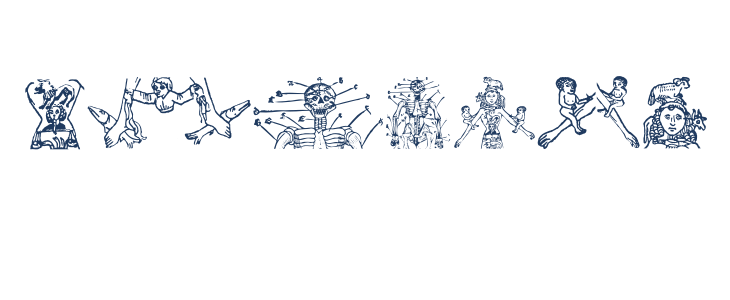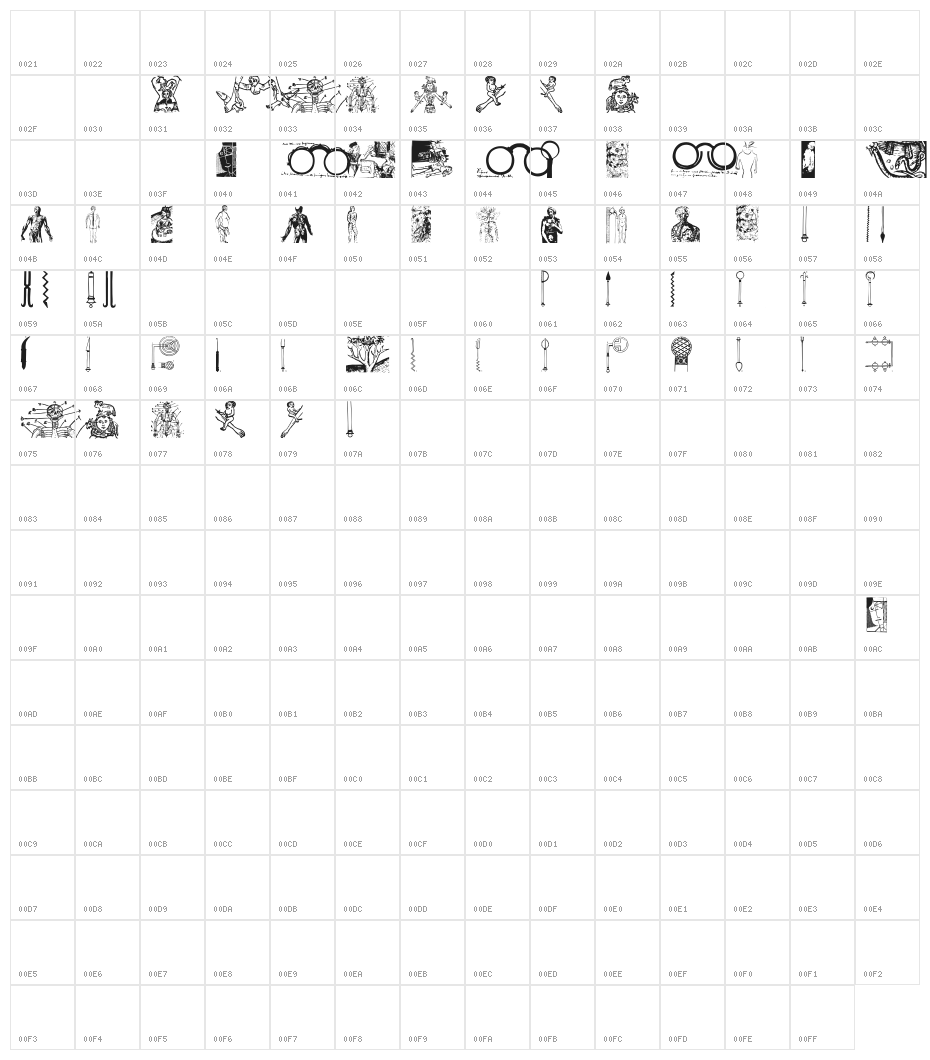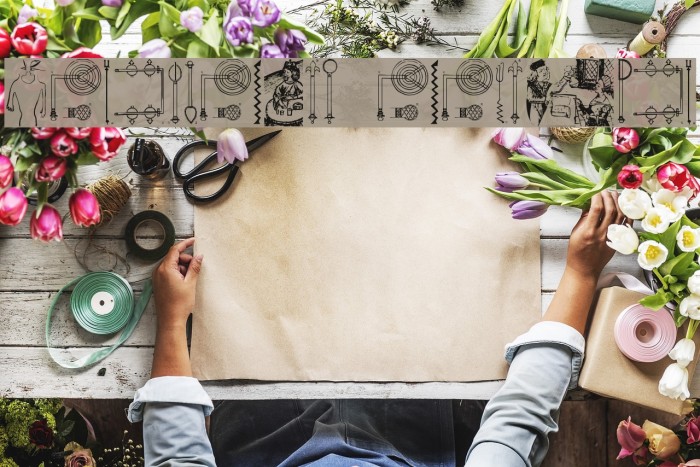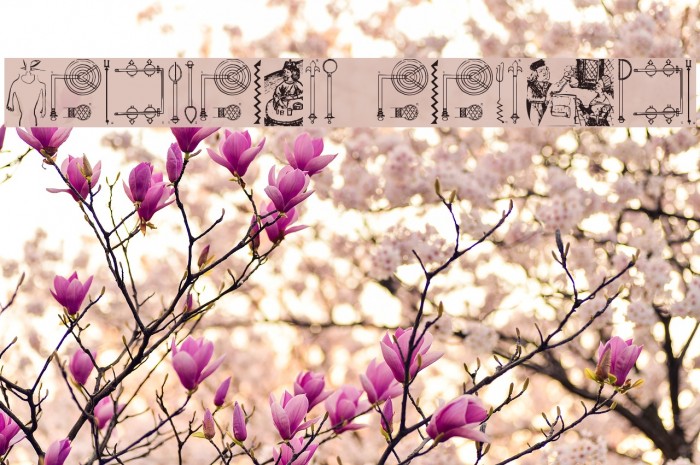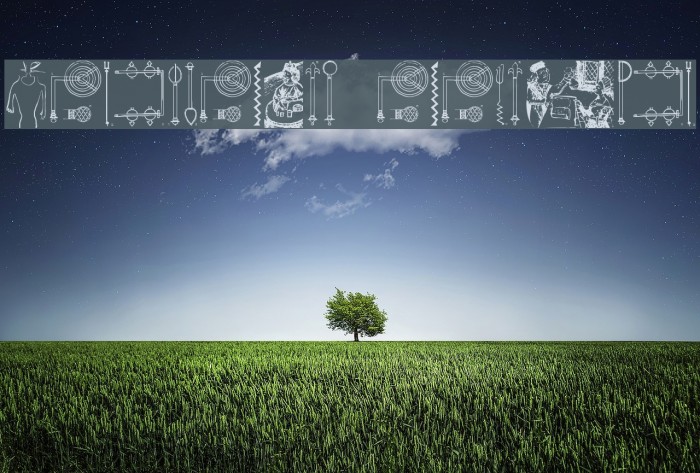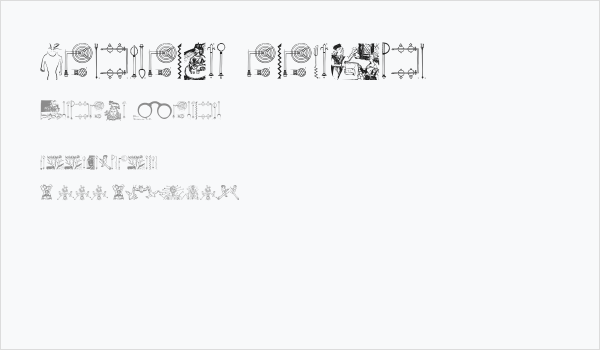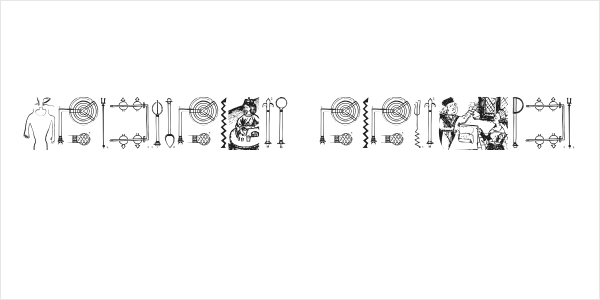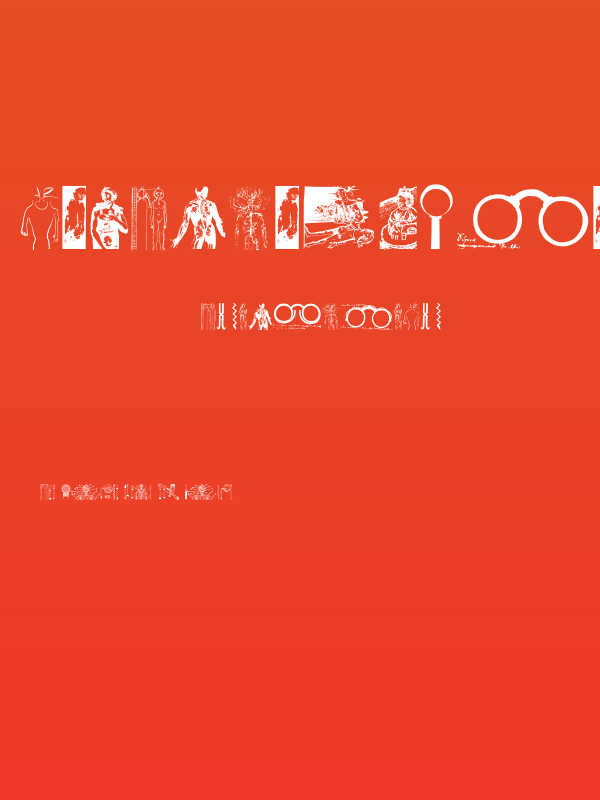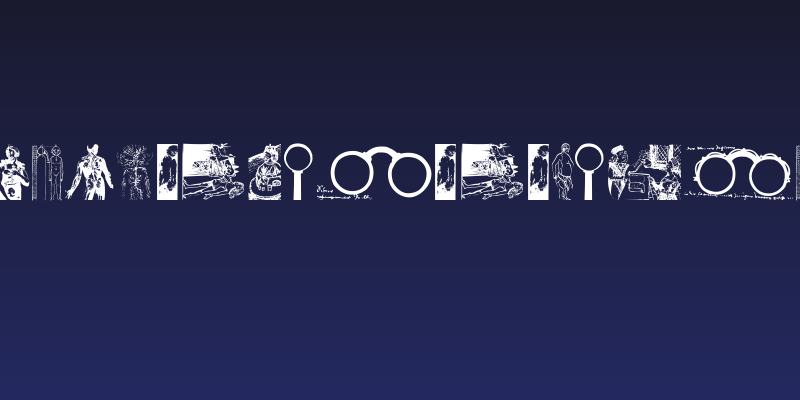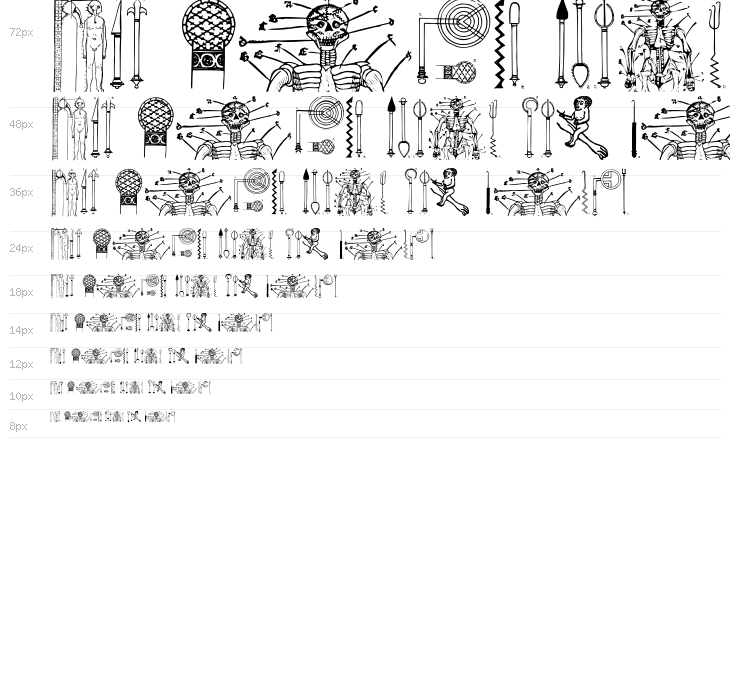
HistoricMedicineBats Font
HistoricMedicineBats Description
A highly decorative and illustrative font composed of historic medical imagery, anatomical drawings, surgical instruments, and stylized human figures, each glyph representing a unique and detailed scene or object rather than traditional letterforms.
| Overall Style | Decorative, Vintage, Illustrative |
| Use Case | Display, Art, Thematic headlines, Educational visuals |
| Proposed Projects | Posters, book covers, educational materials, art projects, themed event graphics. |